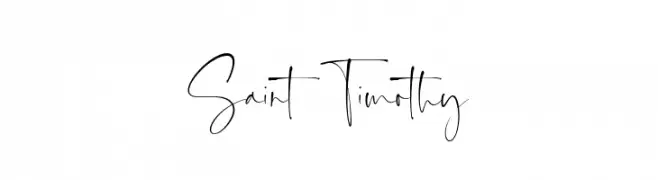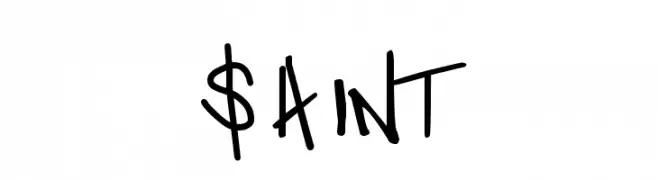
An elegant script font with flowing, cursive letterforms and graceful curves.
A bold, textured font with a hand-drawn, sketch-like appearance.
A cursive, handwritten font with elegant, flowing strokes.
A bold, expressive handwritten font with dynamic strokes and unique embellishments.
A fluid and elegant handwritten font with thin, graceful strokes.
A bold, distressed font with a vintage, rustic appearance.
A futuristic, geometric font with a sleek and modern design.
A futuristic and abstract font with geometric shapes and consistent line weight.